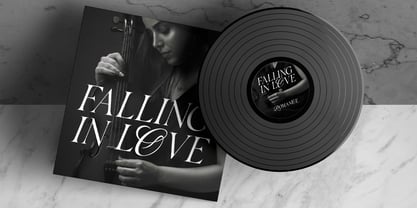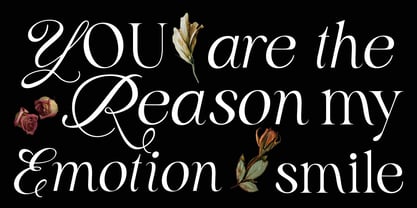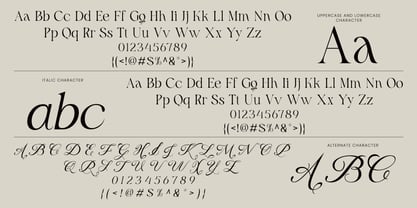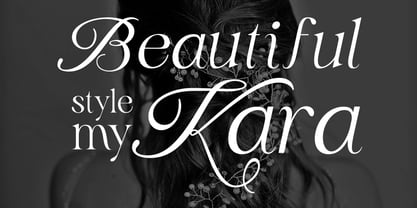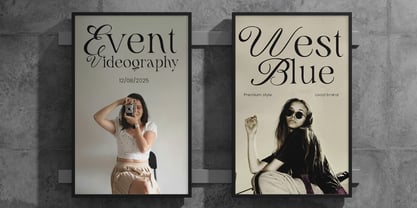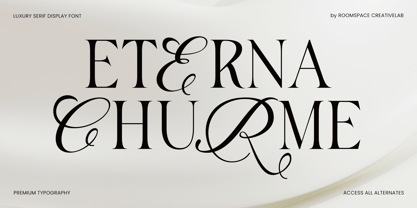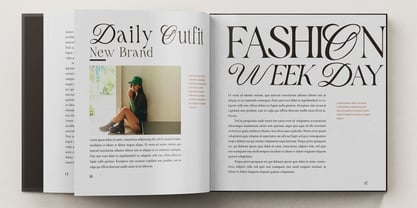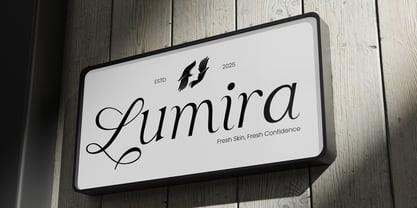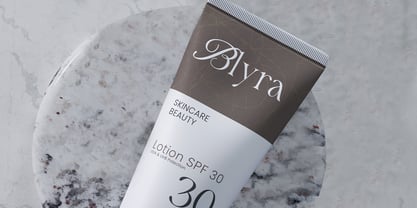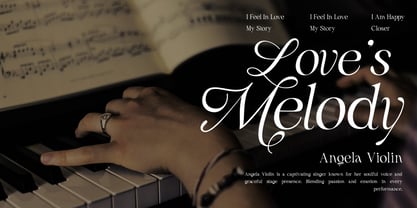
Eterna Churme
The Eterna Churme Font Family was designed by Bakhrudin Ja'far and published by Jafar07. Eterna Churme contains 2 styles and family package options. More about this family
Eterna Churme is a luxury serif display font crafted with timeless elegance and modern sophistication. Its refined letterforms, graceful curves, and stylish alternates bring a high-end aesthetic to any design. With premium kerning and versatile features, this font ensures flawless readability while adding a chic ornamental touch. Perfect for luxury branding, wedding invitations, fashion editorials, packaging, and social media, Eterna Churme will elevate your projects with its iconic elegance. Try it now and give your designs a refined, premium look!
A little from my personal design & background: My name is Bakhrudin Ja'far, I live in Malang, Indonesia. I am currently completing my degree in visual communication design and I have worked as a lettering artist and logo designer for many years. I finally started my studio called roocspace creative lab (jafar07) Studio a few months ago and with my team made my letters into typography.